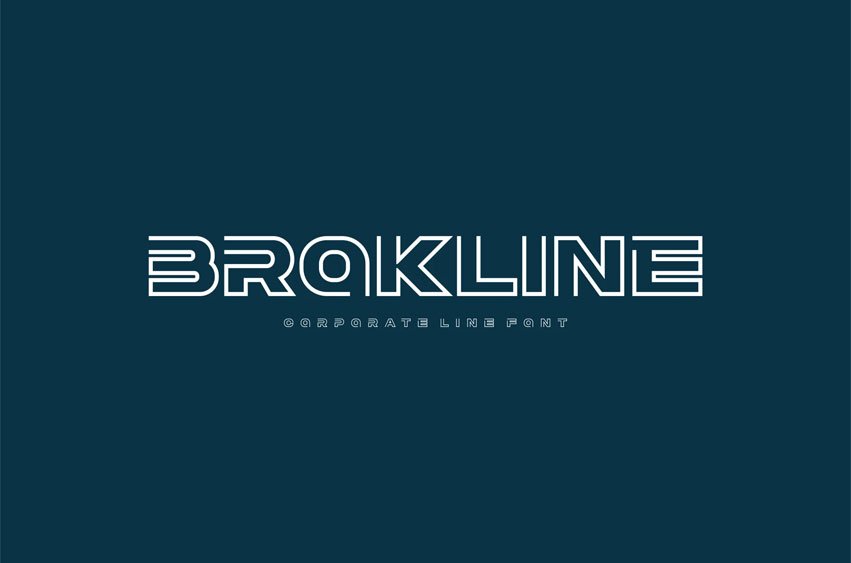
Brokline Line Font
Brokline Line Font Modern Font is a bold and authentic display font. The font is suitable for any branding project like logo, esport, and many more.
outstanding in a wide range of contexts.